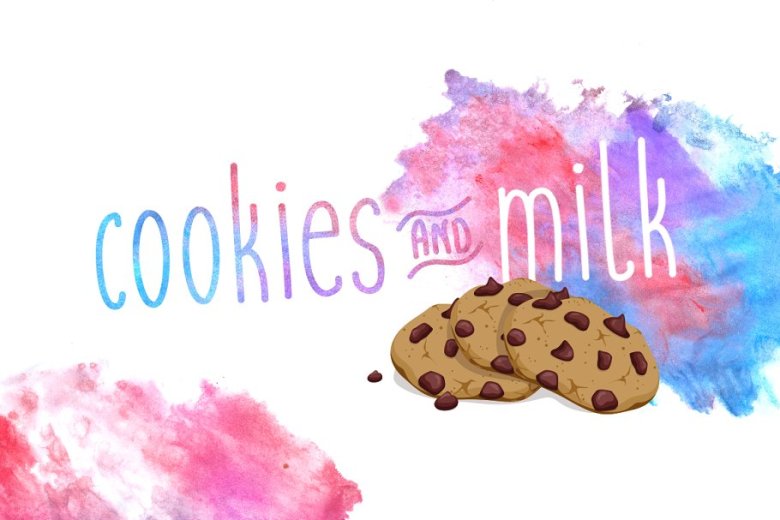
Cookies & Milk Font
Cookies and Milk has a clean, thin and smooth vibe and it will be a hit for any design that you want to add it to. It is suitable for branding, product packaging, invitations, quotes, t-shirts, label, posters, logos and so much more.
Cookies & Milk Handwritten Font